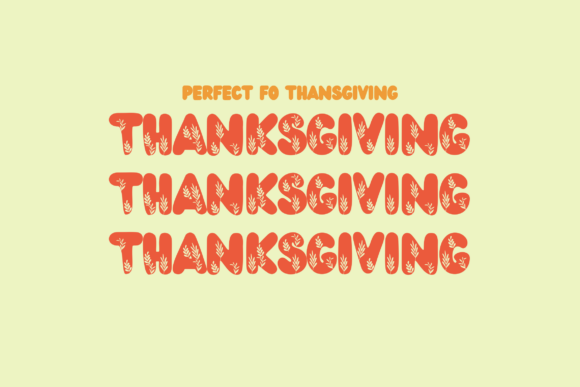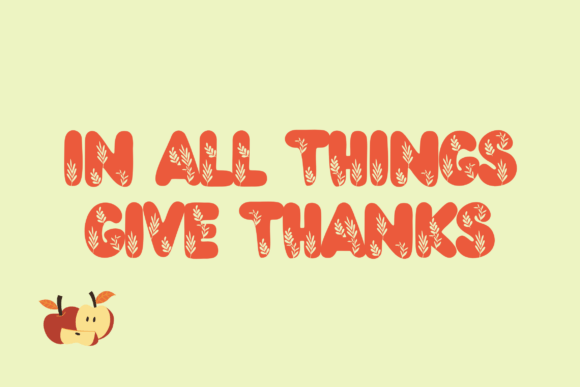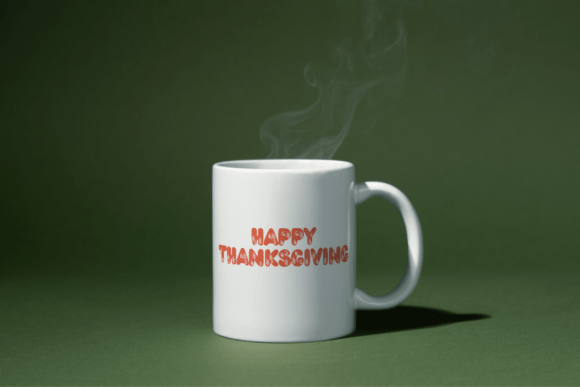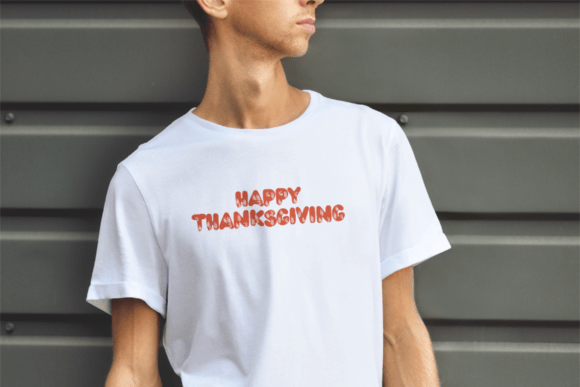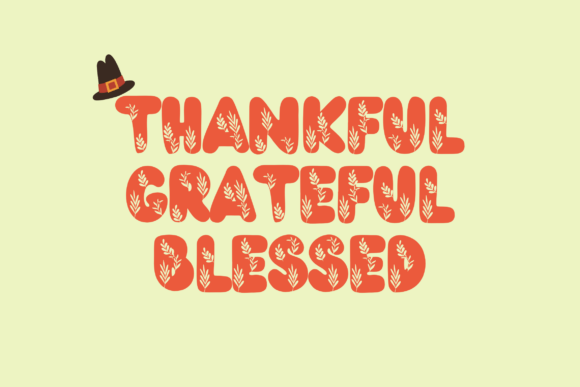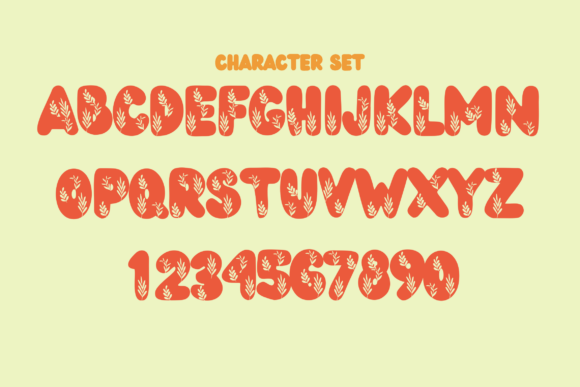
A Fresh Twist on Thanksgiving Traditions
As the leaves begin to change and the air fills with the sweet scent of pumpkin spice, many of us start brainstorming creative ways to express our gratitude and celebrate the spirit of Thanksgiving. For designers, this time of year presents a unique opportunity to get crafty and showcase our skills. One way to add a personal touch to your fall-themed projects is by incorporating the perfect font – one that embodies the warmth and joy of the season.
Enter the Bubble Thanksgiving Font, a delightful typeface that brings a cheerful and spirited vibe to any design. With its charming hand-drawn letters and airy, rounded features, this font is sure to infuse a welcoming and jubilant charm into your creations. Whether you’re crafting greeting cards, designing posters, or simply looking for a way to add a personal touch to your social media posts, the Bubble Thanksgiving Font is the perfect addition to your design toolkit.
Bubble Thanksgiving Font Key Features
- Unique Characteristics: The Bubble Thanksgiving Font features a unique, playful design with rounded bubbles and intricate details, perfect for creating a festive atmosphere during the Thanksgiving holiday.
- Script and Glyphs: The font includes a variety of Thanksgiving-themed glyphs, such as pumpkins, turkeys, and leaves, which can be used to create custom designs and graphics.
Bubble Thanksgiving Font Review
The Bubble Thanksgiving Font is a cute and playful font that’s perfect for adding a touch of whimsy to your designs. ✨ It features bubbly, rounded letters that resemble hand-drawn illustrations, giving it a charming and childlike feel. ✨ The font comes in a range of styles and weights, making it versatile and easy to use.
Here are some of the font’s strengths:
- Unique and eye-catching design that’s sure to grab attention
- Highly customizable with various styles and weights
- Perfect for creating a playful and festive atmosphere, especially around holidays like Thanksgiving
- May not be suitable for formal or professional designs
- Some characters may not be perfectly formed or may be missing
- Not ideal for small text sizes, as the letters can become blurry or difficult to read
Overall, I’d give the Bubble Thanksgiving Font 3.5 out of 5 stars. It’s a fun and creative font that’s perfect for adding a touch of personality to your designs, but it may not be suitable for every project. ⚠️ With some careful consideration and planning, however, it can be a great addition to your design toolkit.
Use the Bubble Thanksgiving Font to create festive and playful designs for Thanksgiving-themed projects.
Combine the font with other design elements, such as fall-colored backgrounds and leaf shapes, to create a cohesive look.
Experiment with different font sizes and colors to add visual interest to your designs.
Use the Bubble Thanksgiving Font for:
Thanksgiving invitations and cards
Menu boards and place cards
Decorative text for social media posts and blog headers
Design elements for fall-themed parties and events
Alternatives to Bubble Thanksgiving Font
The Bubble Thanksgiving Font is a playful, cursive font used for festive occasions. However, designers may look for alternative fonts that offer a similar feel without being too specific to the holiday season. Here are a few options: